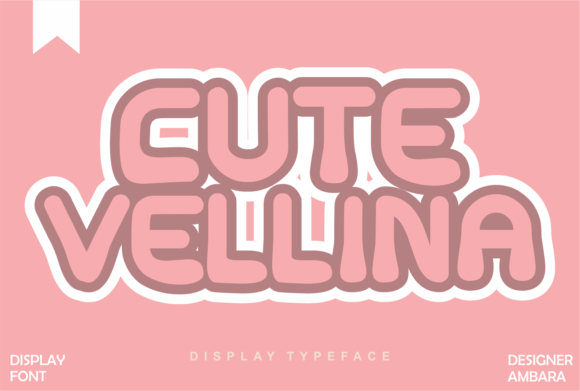
Introducing Cute Vellina Font, the enchanting display font that will transform your creations into masterpieces. Its adorable curves and playful personality are guaranteed to bring a smile to your face and captivate your audience.
Crafted with meticulous attention to detail, Cute Vellina boasts a whimsical style that exudes warmth and happiness. Its unique letterform, particularly the captivating 'C,' adds a touch of charm to every word you write. Whether you're designing eye-catching posters, invitations, or social media graphics, Cute Vellina will elevate your work to new heights.
But wait, there's more to Cute Vellina than meets the eye. Its versatility knows no bounds, making it the perfect choice for a wide range of creative projects. From whimsical children's books to cheerful greeting cards, this font will infuse your creations with a burst of joy and imagination.